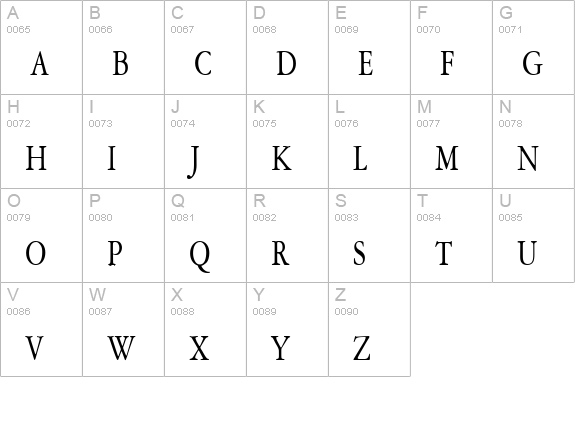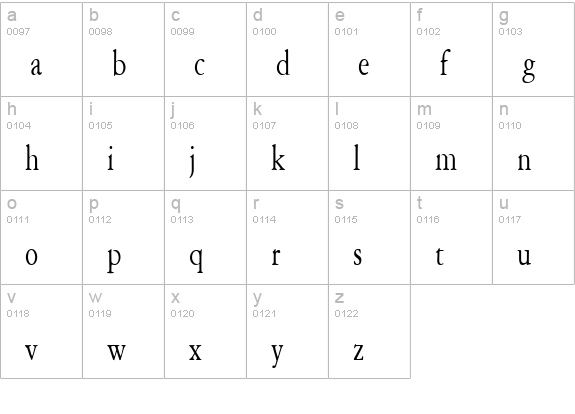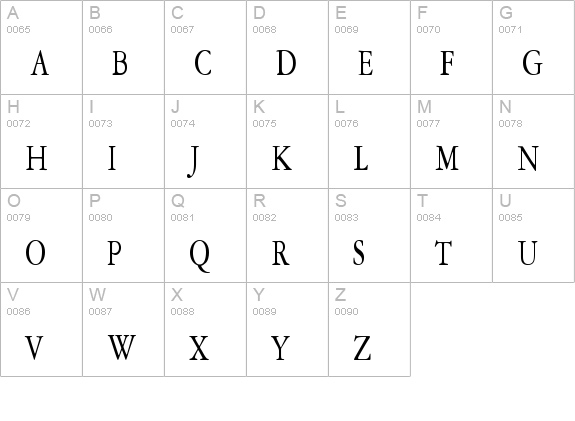
Amery Condensed Normal is the standard, neutral, condensed-width variant in the Amery typeface family \xE2\x80\x94 well suited to general body text, paragraphs, and standard typographic work.
Amery Condensed Normal font is a versatile and modern typeface that exudes elegance and sophistication. Its sleek and streamlined design makes it perfect for a wide range of projects, from branding to editorial design. The clean lines and balanced proportions of this font give it a timeless appeal that will stand the test of time. What sets Amery Condensed Normal font apart is that it is available for free download at FontsMarket.com. This means that you can easily access this high-quality font and use it in your projects without any cost. Whether you're working on a professional design project or a personal creative endeavor, Amery Condensed Normal font is sure to elevate your work and make a lasting impression. With its classic yet contemporary aesthetic, Amery Condensed Normal font is a must-have for designers looking to add a touch of refinement to their creations. Download this exceptional font for free today and see for yourself the impact it can have on your designs.